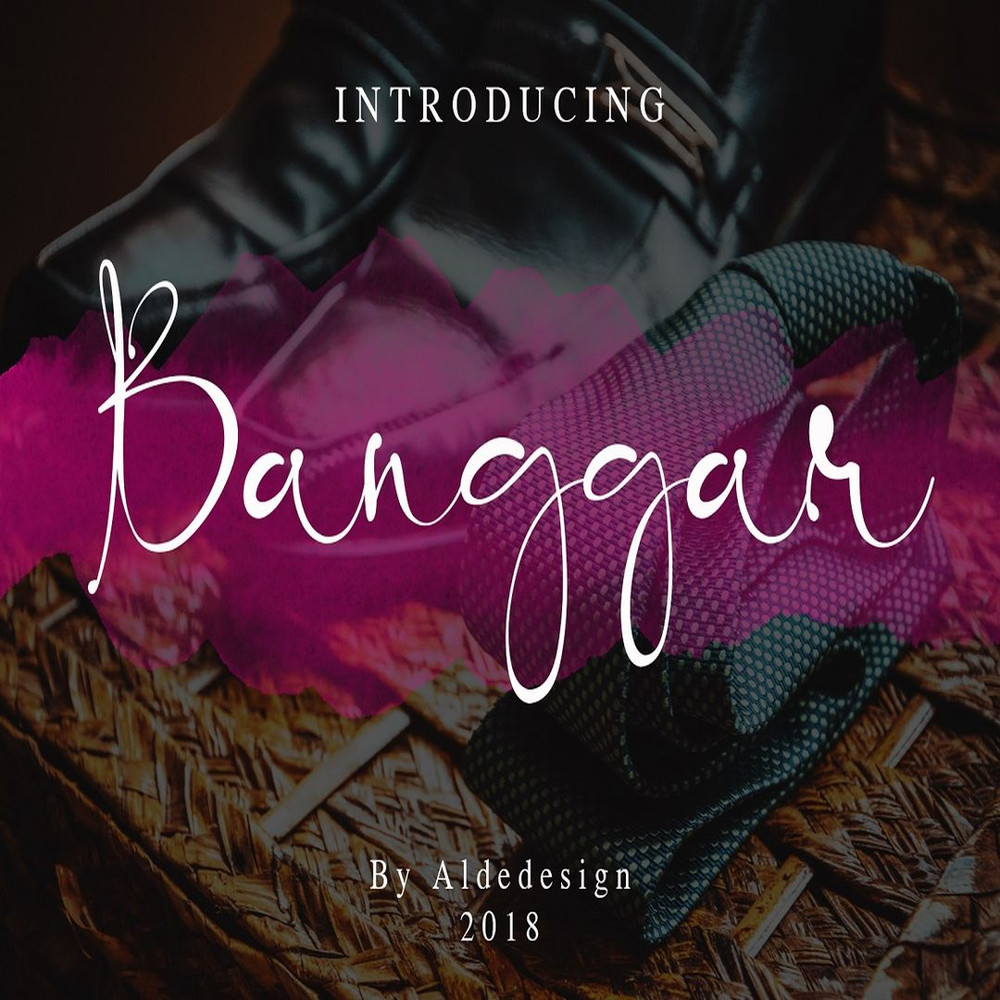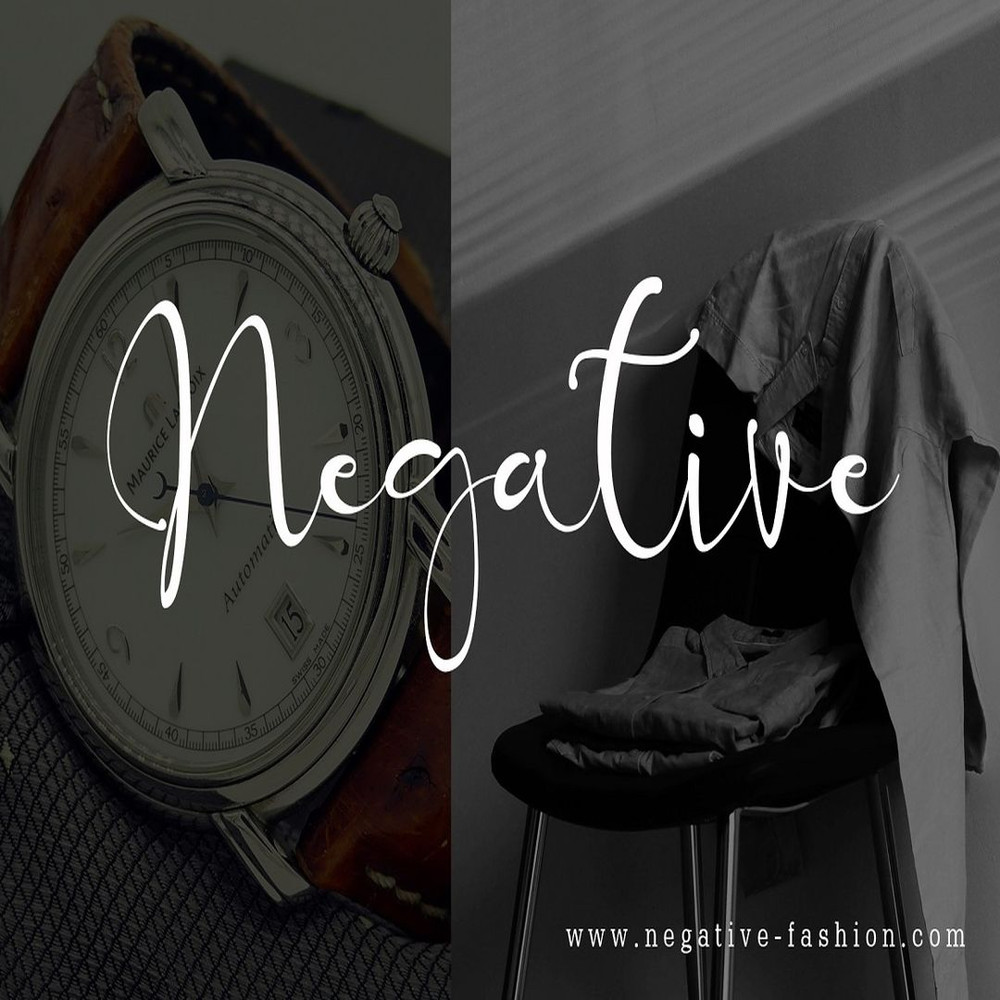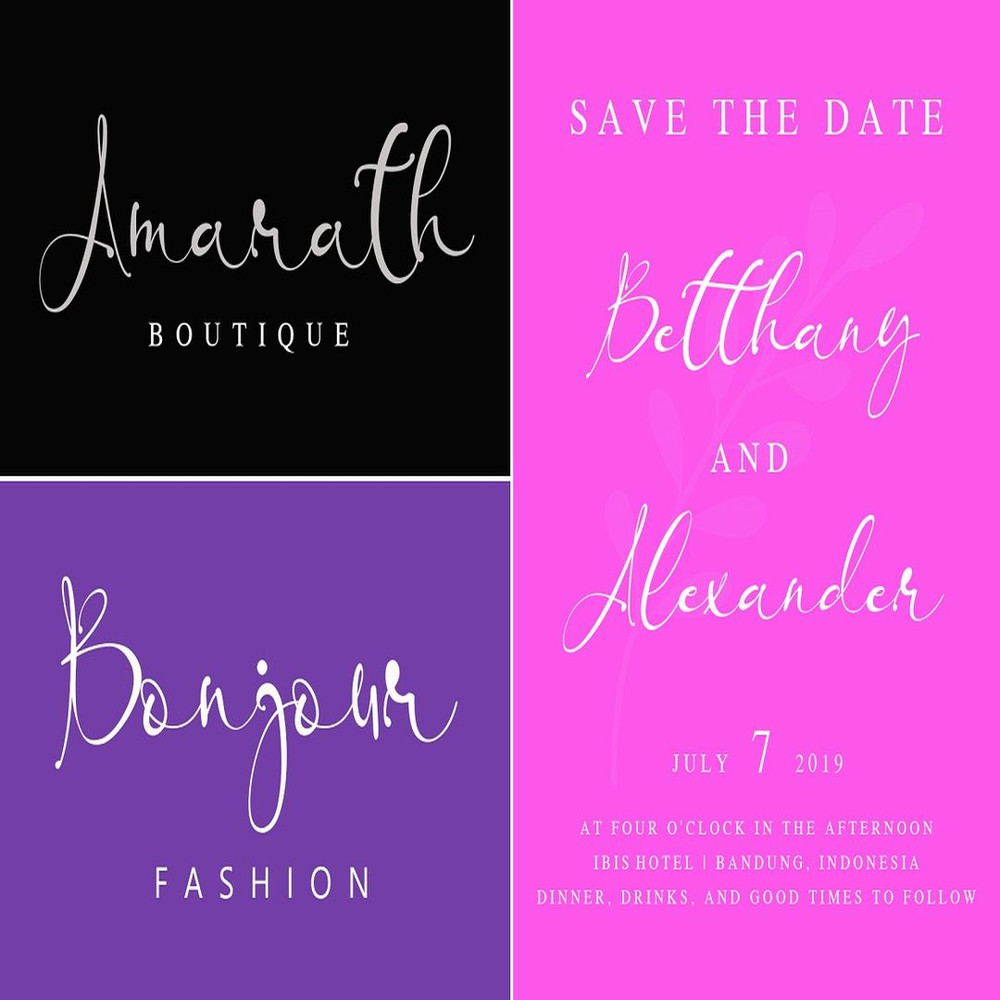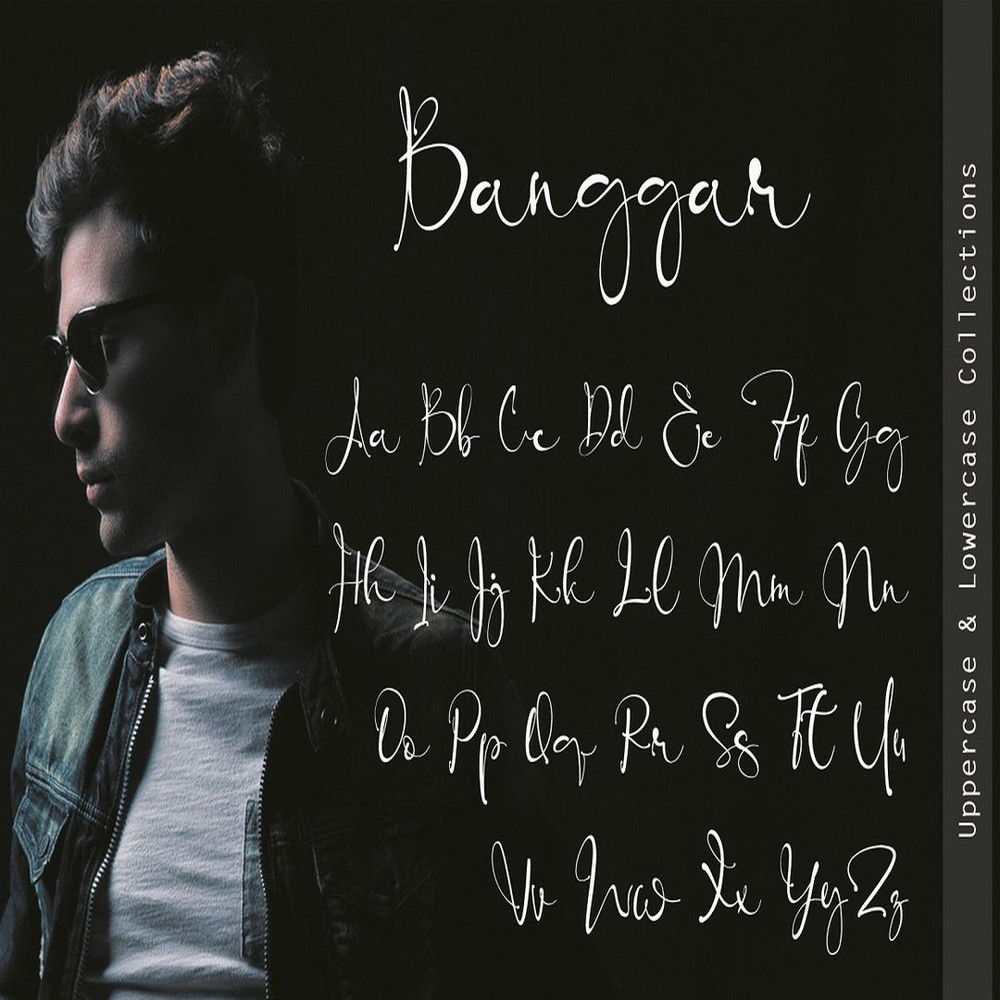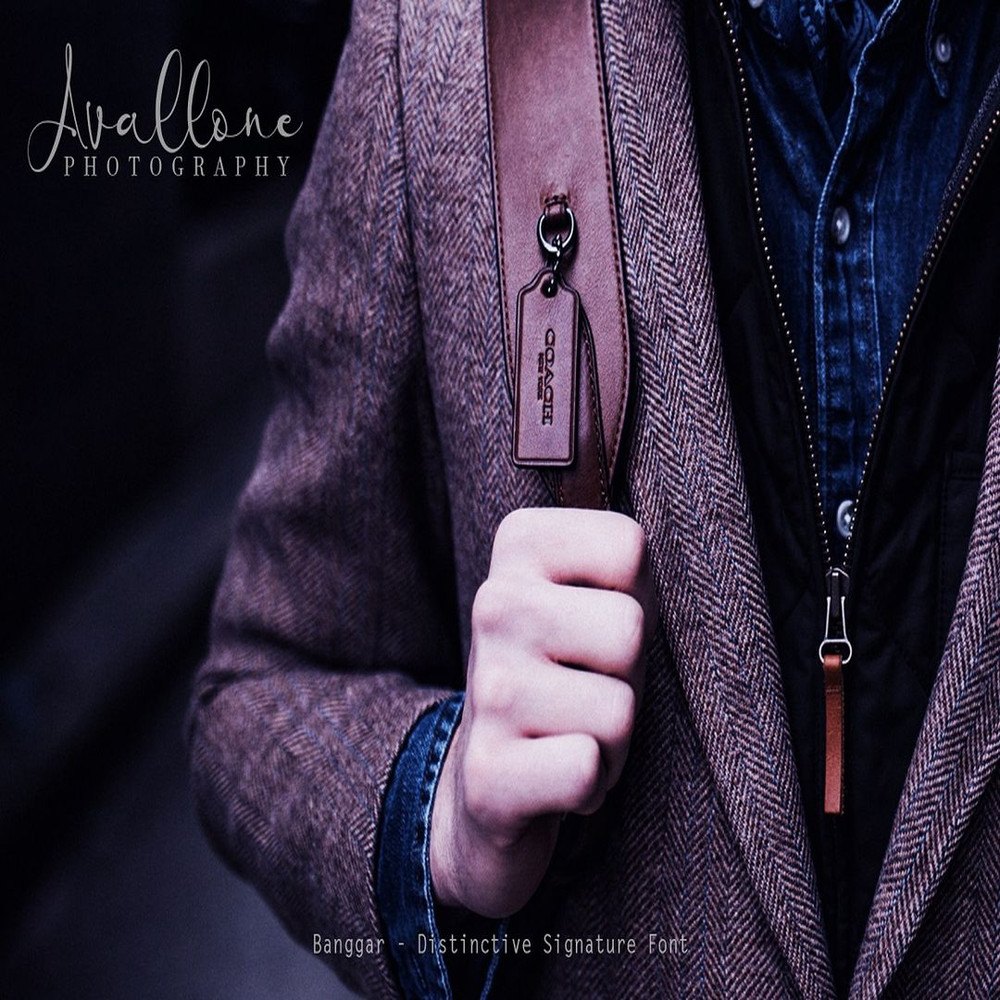
Banggar – Distinctive Signature Font is a font with simple and classy taste, we keep this font looks classy, readable, elegant, stylish, catchy and absolutly easy to use.
Banggar is the great choice for watermark on photography, signature or signature logo design, album cover, business card, quotes, and many other design project.